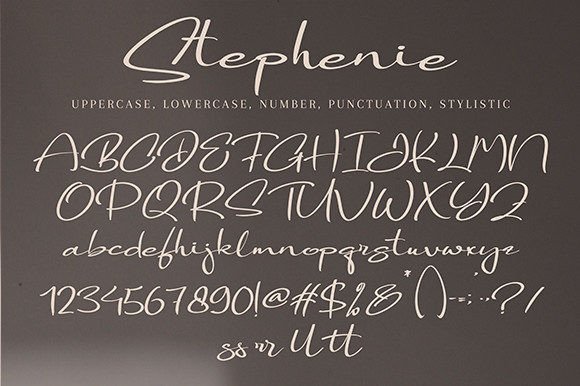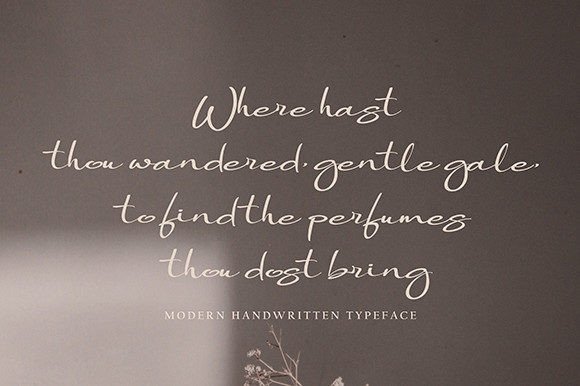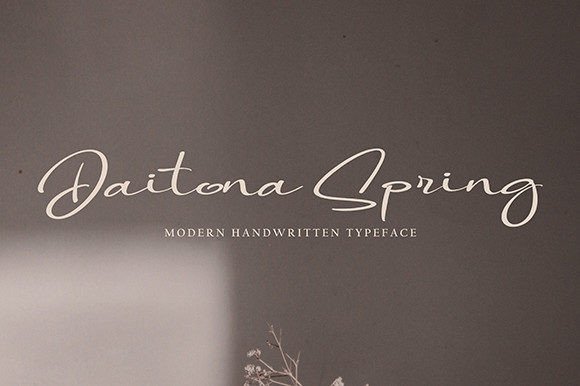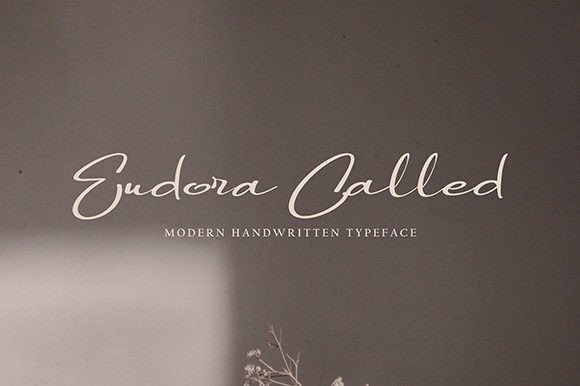
Stephenie Handwritten Font – Stylish and Modern Script
The Stephenie Handwritten Font is a beautiful and modern script typeface created to bring elegance and charm to your projects. With its smooth handwritten strokes and stylish curves, it fits perfectly in both personal and professional design contexts. Whether you’re creating logos, posters, or invitations, this font ensures your work looks unique and engaging.
A Script with Modern Appeal
The Stephenie Handwritten Font combines neat handwritten details with a fresh, modern flow. Its friendly and stylish curves give it personality, while its readability makes it practical. Because of this, it adapts seamlessly to projects that demand both elegance and creativity.
Perfect for Quotes and Branding
One of the best uses of the Stephenie Handwritten Font is in branding and quotes. Its chic strokes bring personality to inspirational messages, logos, and taglines. At the same time, it works beautifully for posters, event invitations, and business cards, where a handwritten script adds sophistication and style.
The Stephenie Handwritten Font adapts effortlessly to a wide range of design applications. From wedding stationery and blog headers to product packaging and digital artwork, it provides a handwritten charm that feels modern and timeless. Its versatility ensures it becomes a go-to font for many projects.
Why Designers Love Stephenie Font
Designers love the Stephenie HandwrittenFont because it balances elegance with usability. Its graceful handwritten details add originality, while its clarity ensures it can be used in professional contexts. This combination makes it a must-have for creative toolkits.
In summary, the Stephenie HandwrittenFont is a stylish, modern, and versatile script typeface. With its smooth handwritten flow, quick installation, and wide usability, it is perfect for quotes, invitations, logos, and posters. Don’t miss the chance to download Stephenie HandwrittenFont and give your designs an elegant handwritten touch.